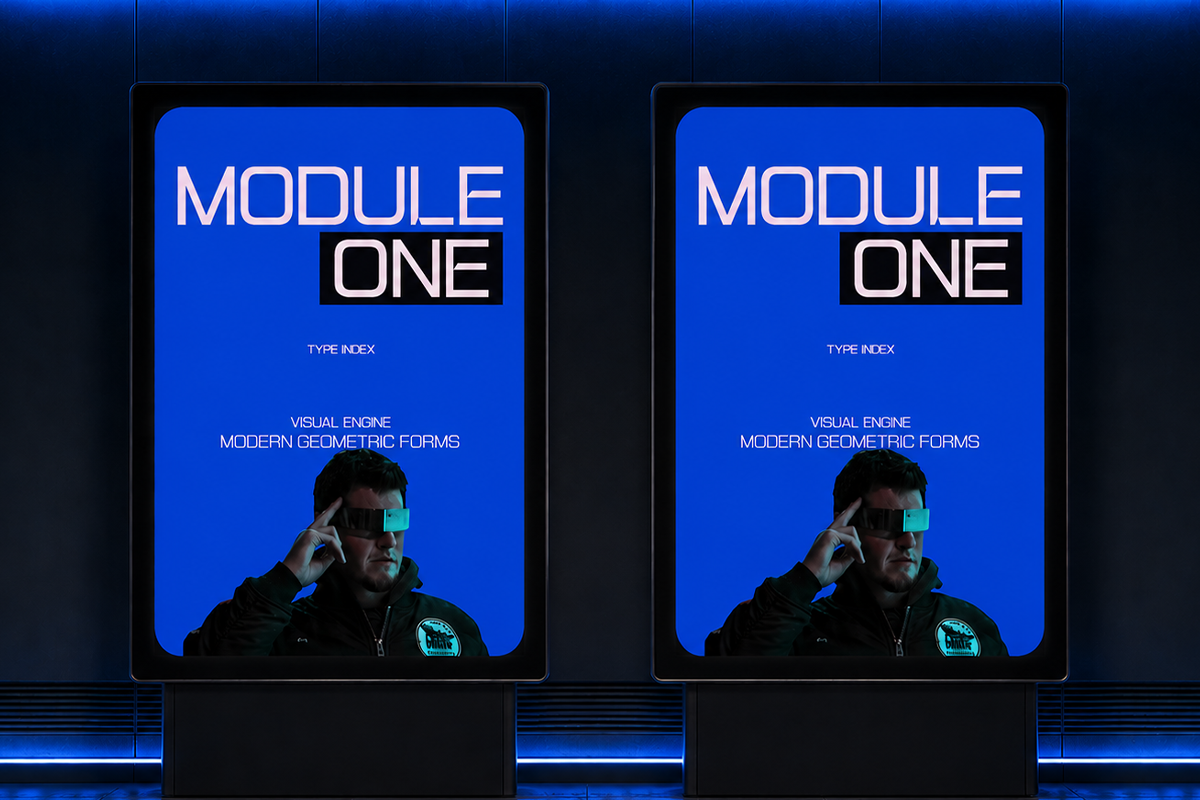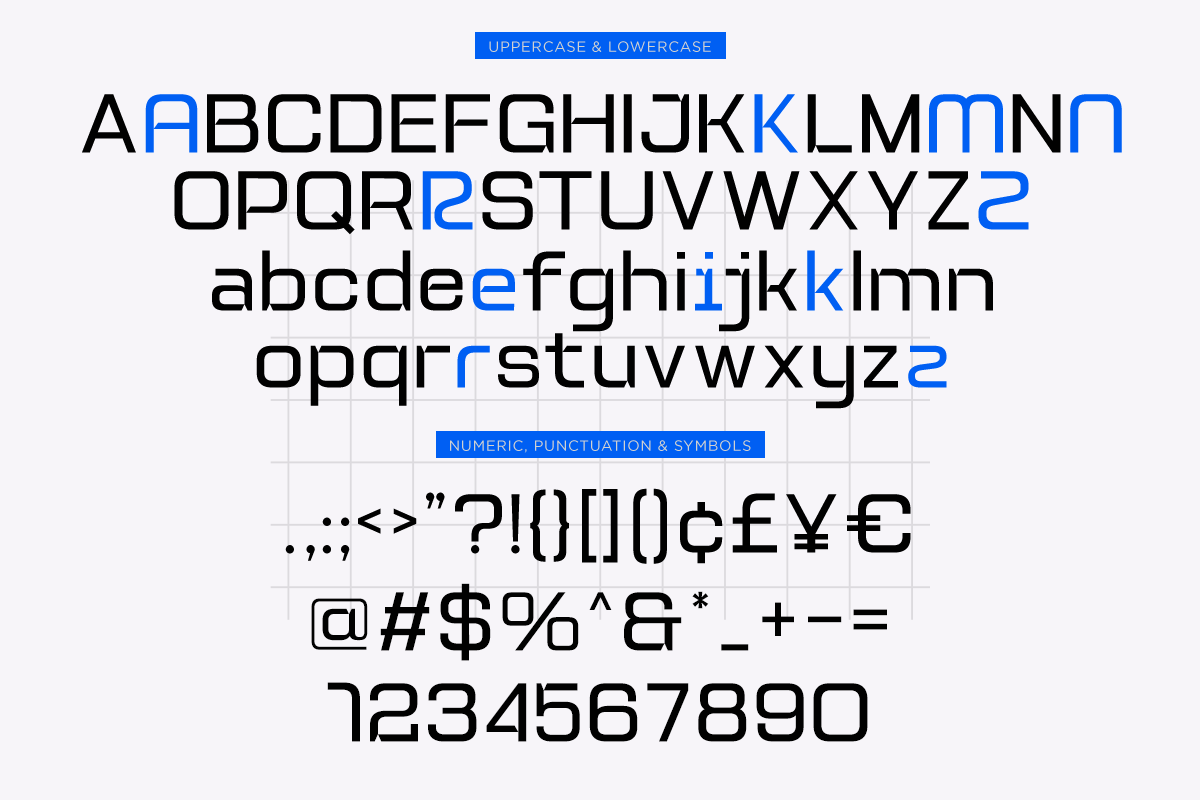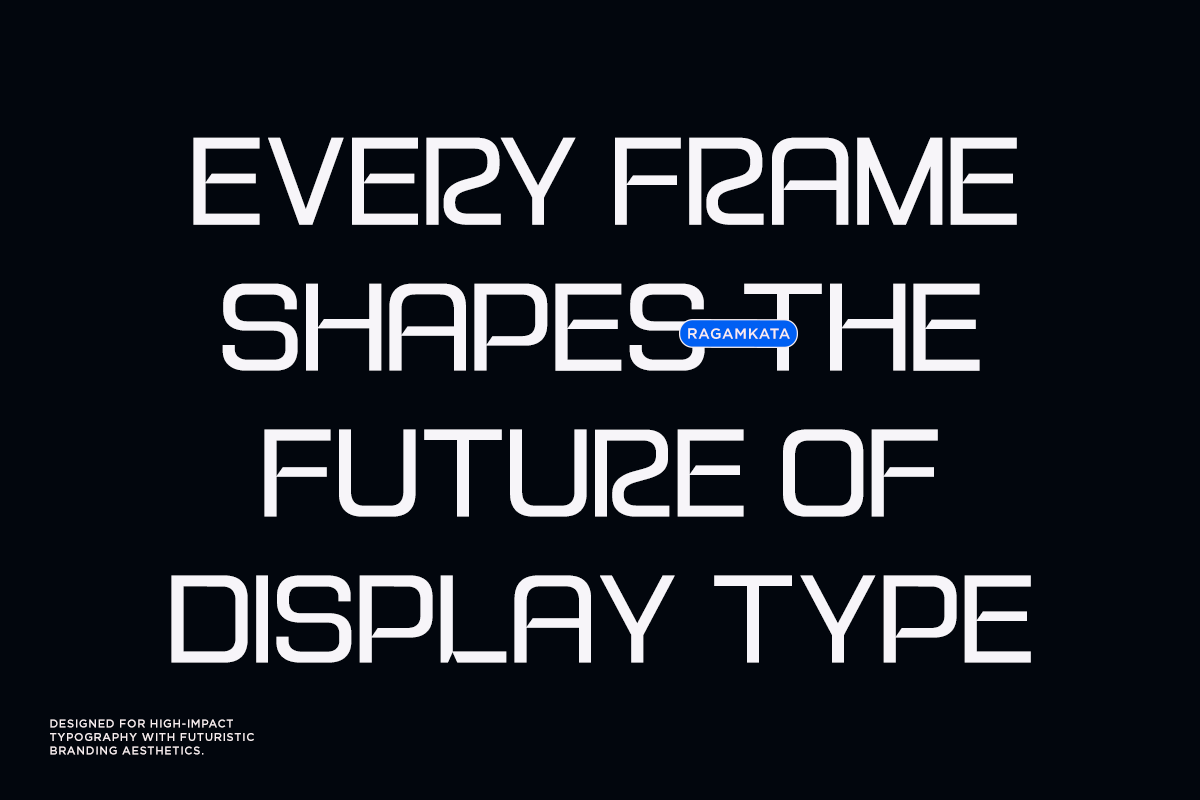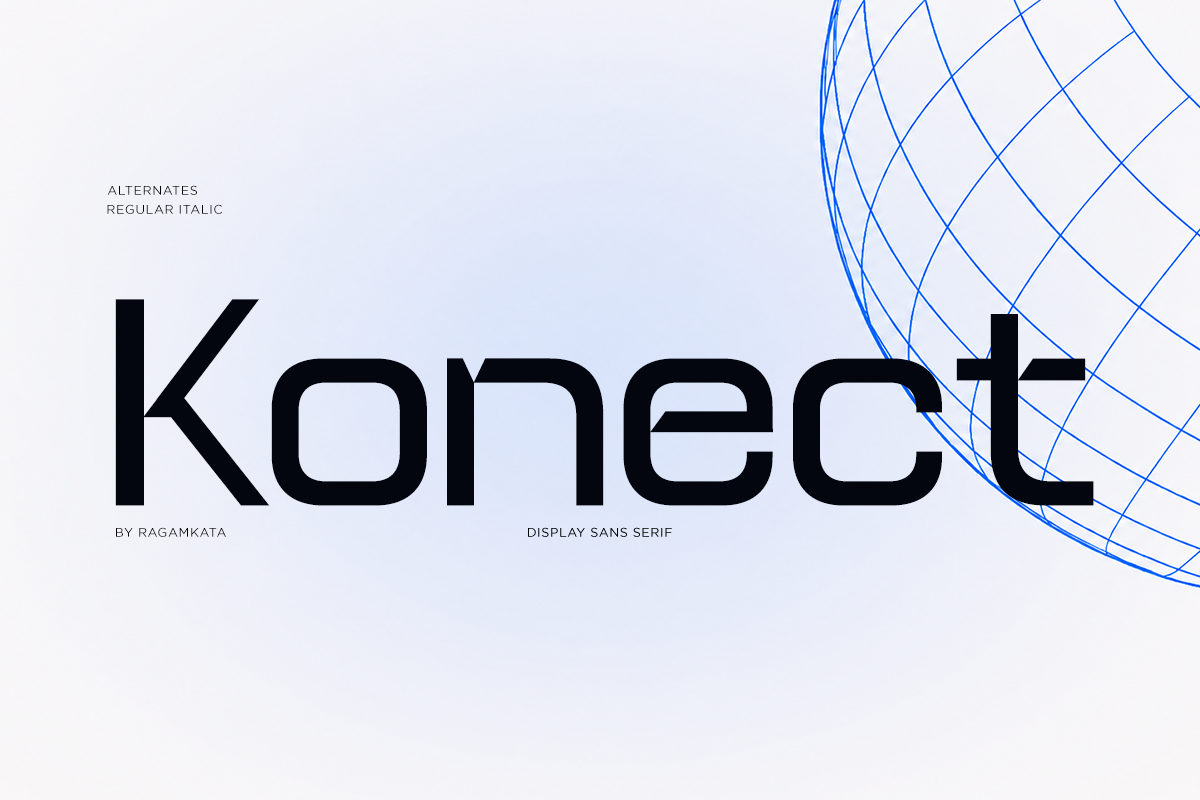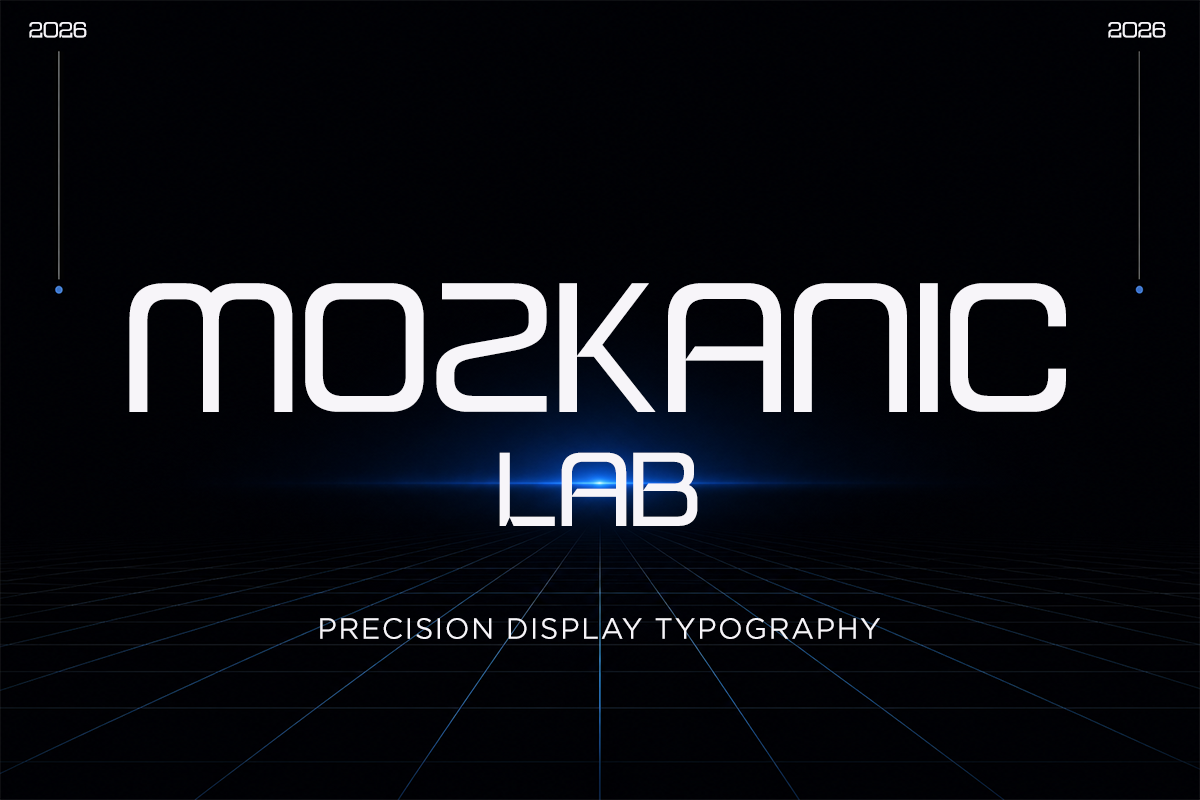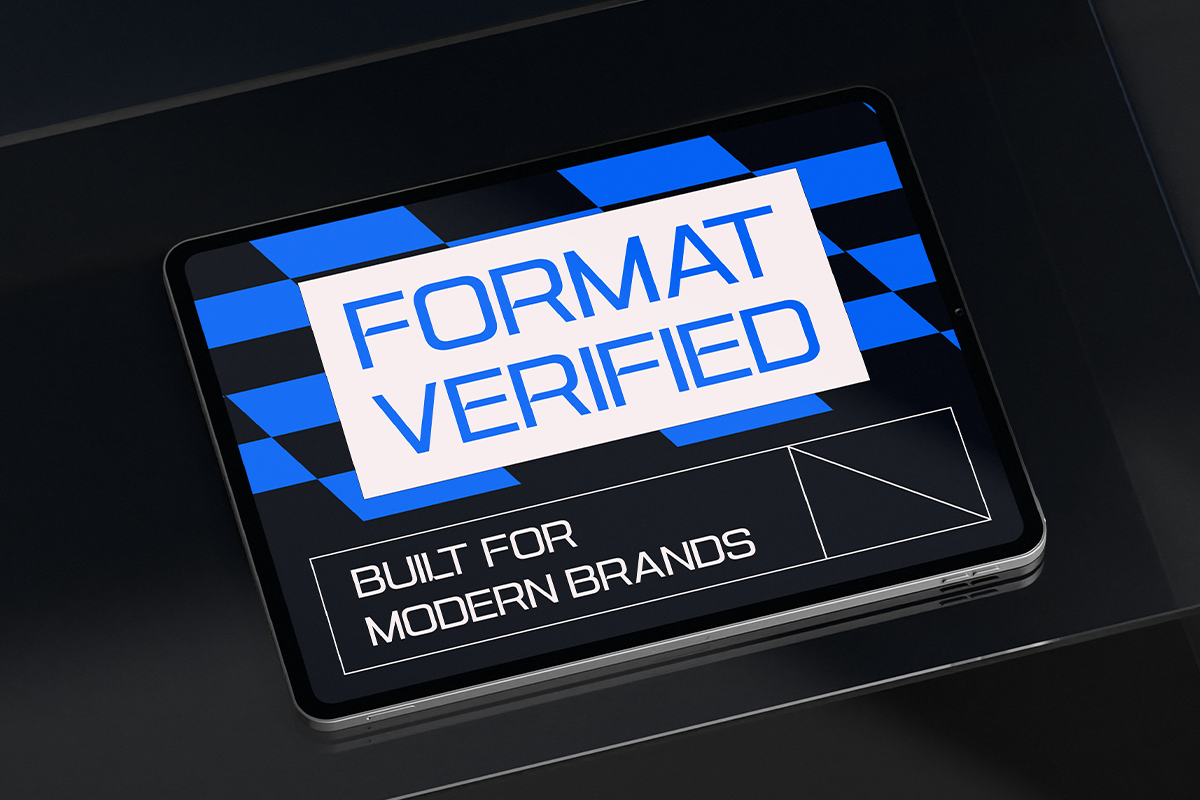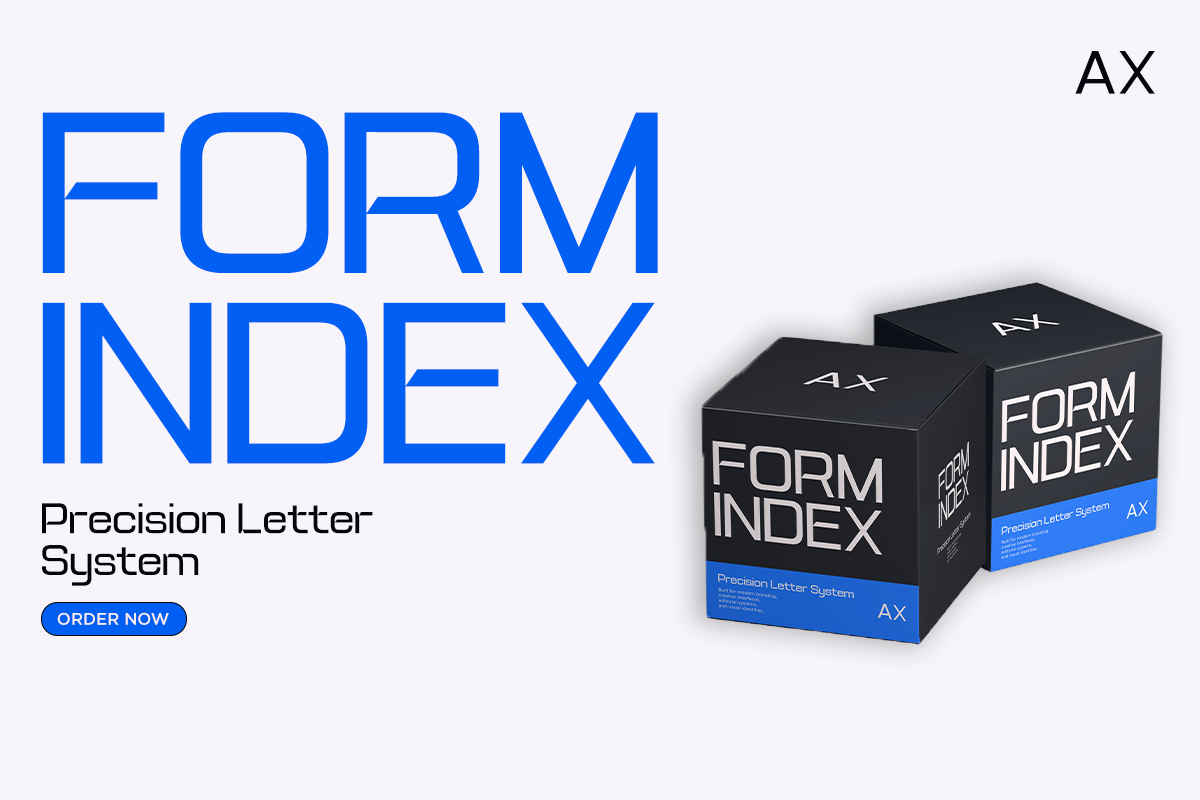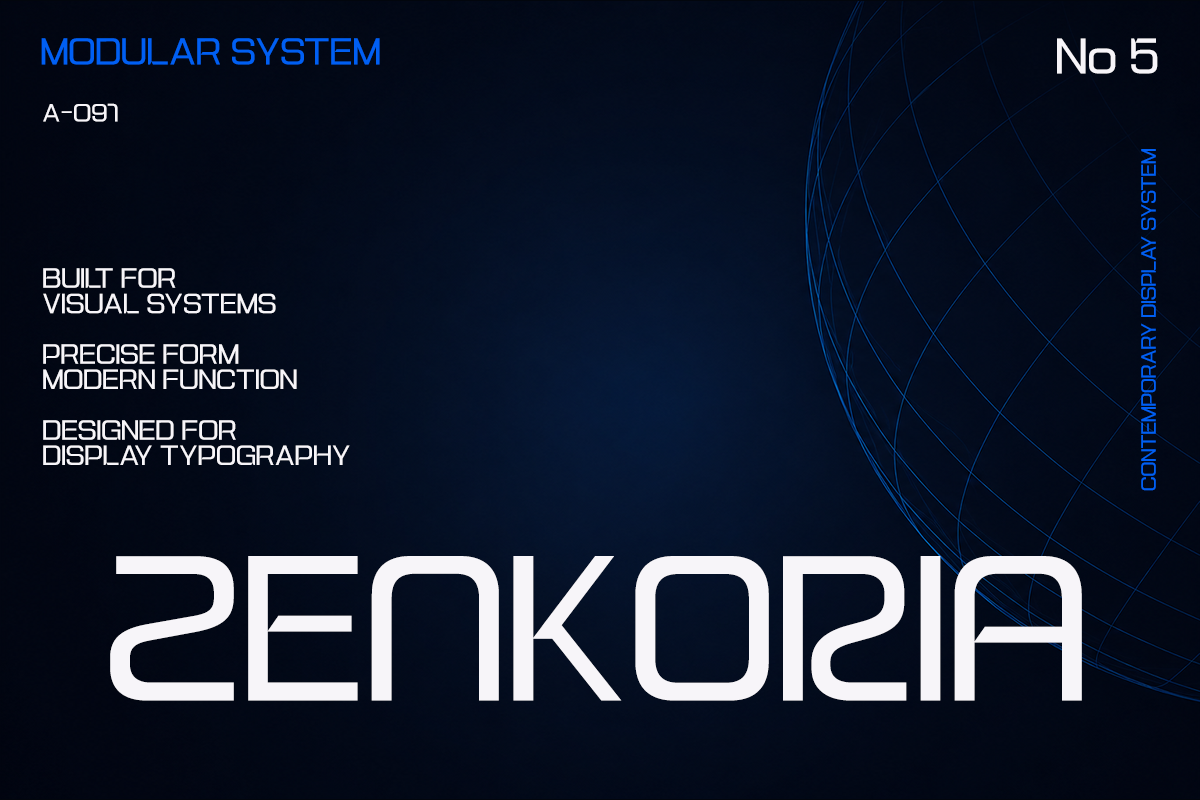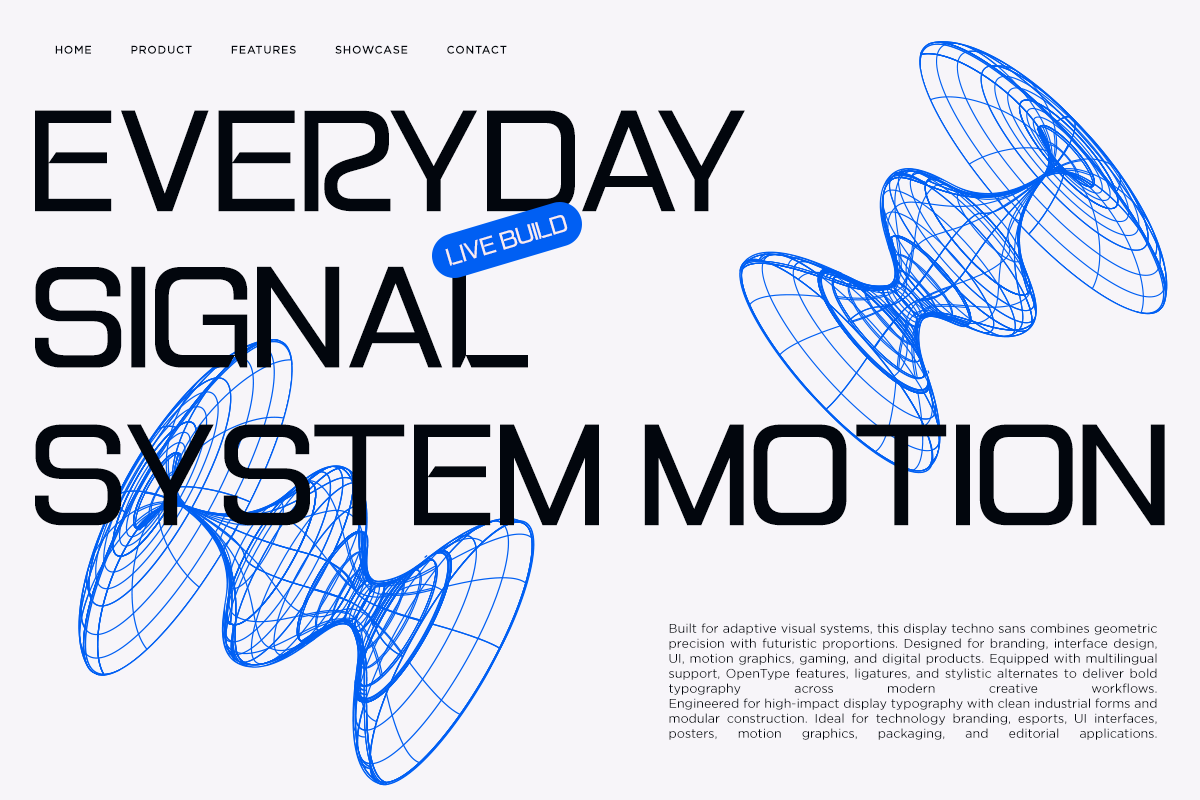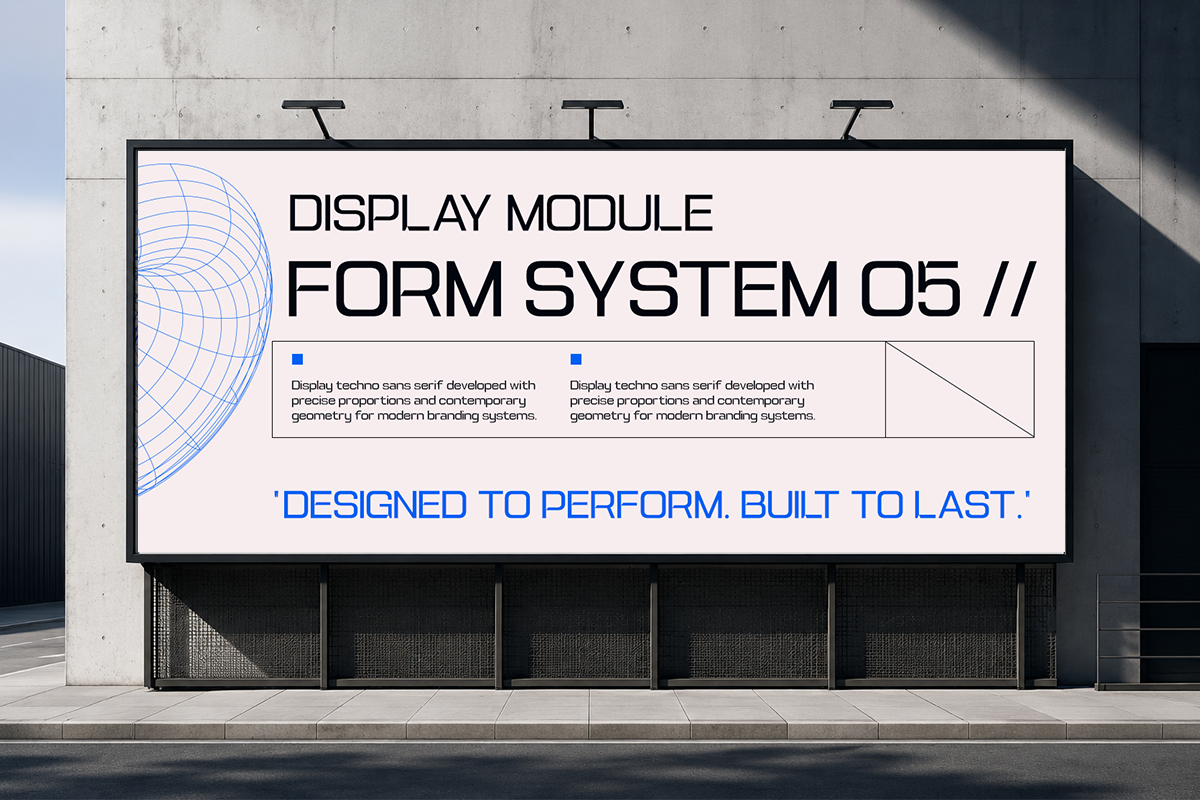
Konect - Futuristic Tech Sans Font
Konect is a futuristic tech sans serif font crafted for creators who want to build bold, modern, and innovative visual identities. Featuring geometric letterforms, clean curves, and sharp contemporary details, Konect delivers a sleek high-tech aesthetic that feels perfect for digital brands, startups, gaming, AI, and technology-driven projects.
Designed with versatility in mind, Konect includes Regular and Italic styles, making it easy to create dynamic typography with strong visual impact. Its minimalist construction and futuristic character ensure excellent readability while maintaining a distinctive, premium appearance for both print and digital media.
Whether you're designing logos, branding, UI/UX interfaces, esports graphics, technology posters, product packaging, social media content, websites, YouTube thumbnails, motion graphics, editorial layouts, app interfaces, or futuristic presentations, Konect provides the modern edge your projects need.
Regular and Italic